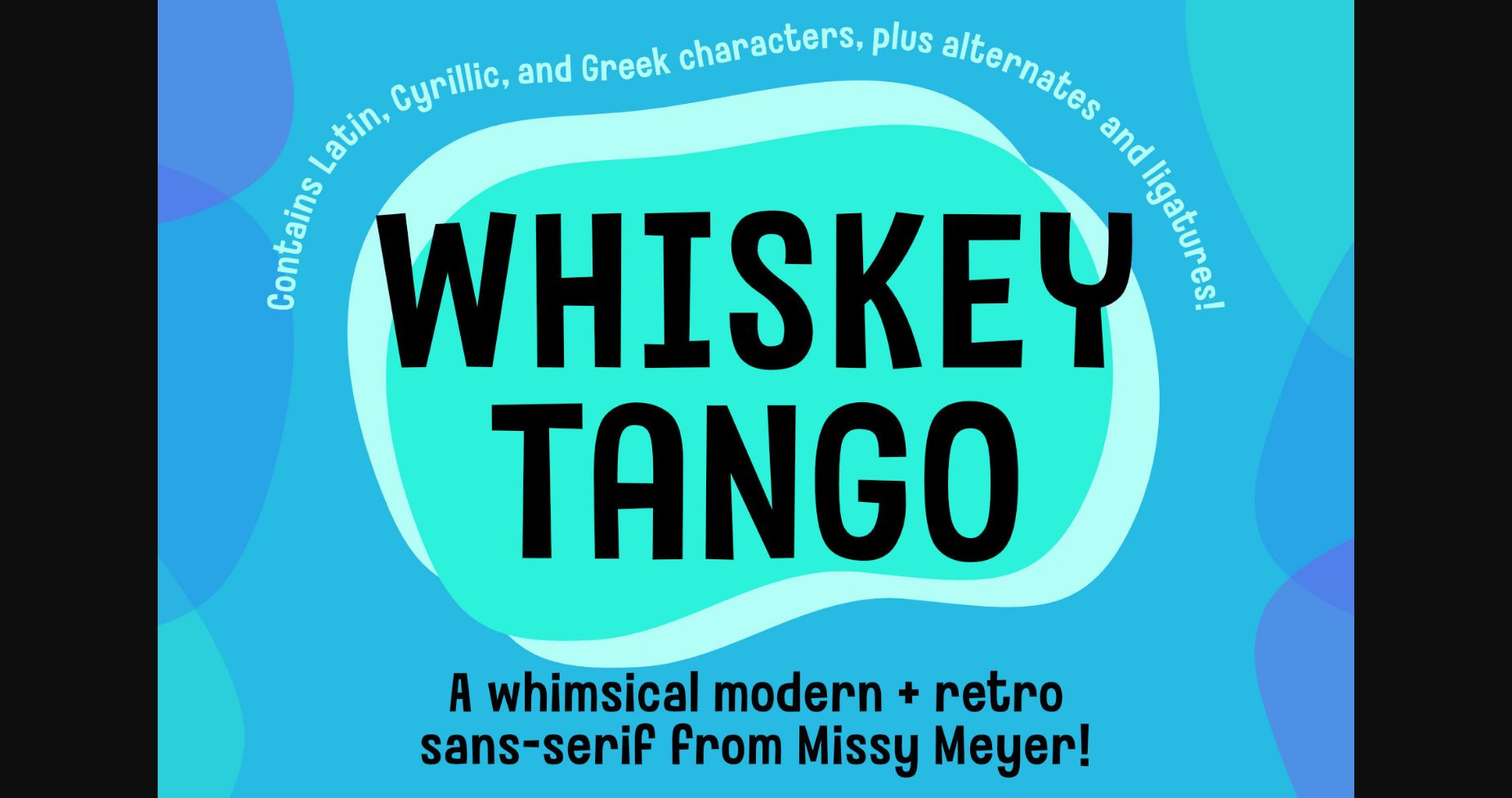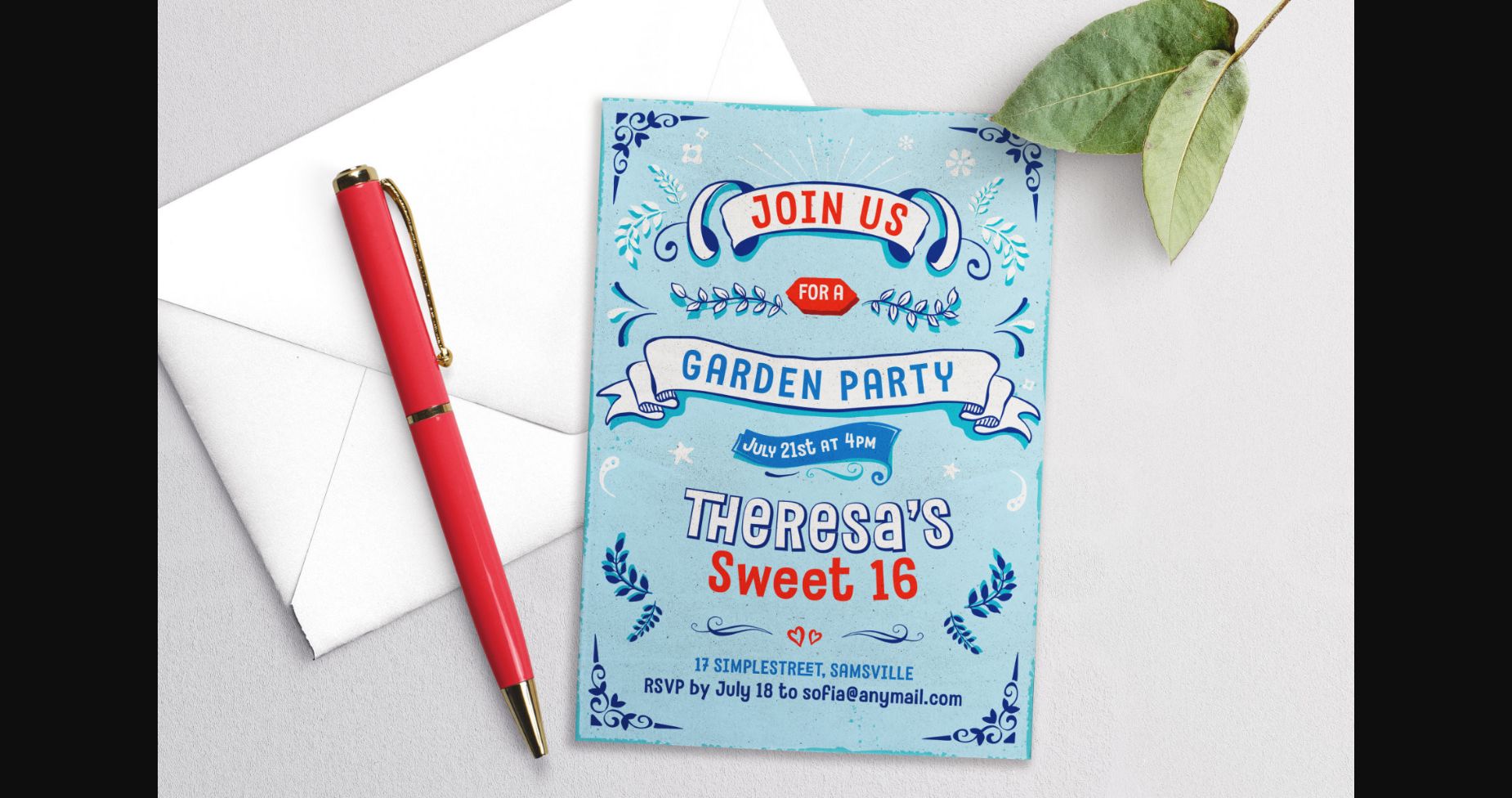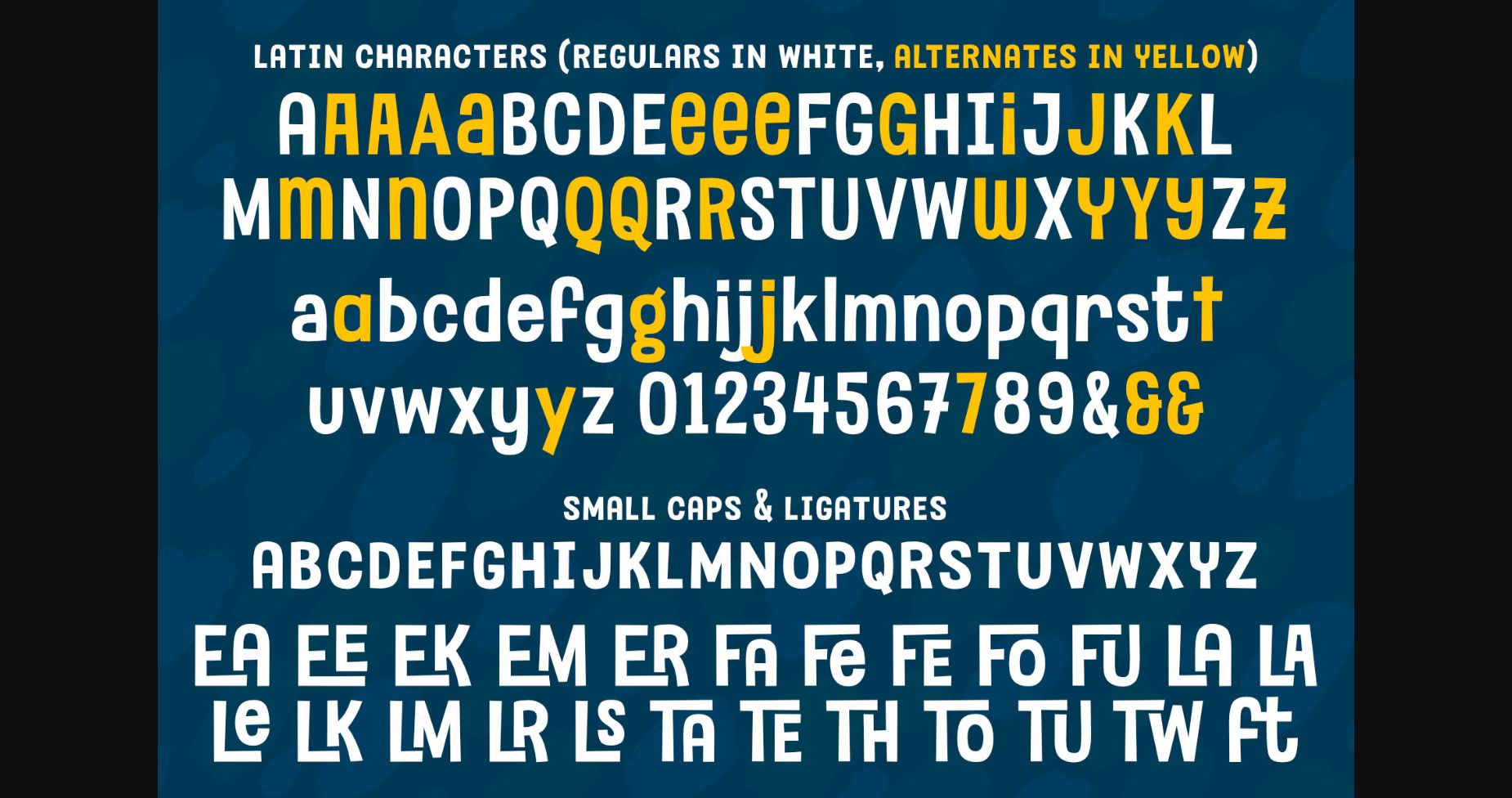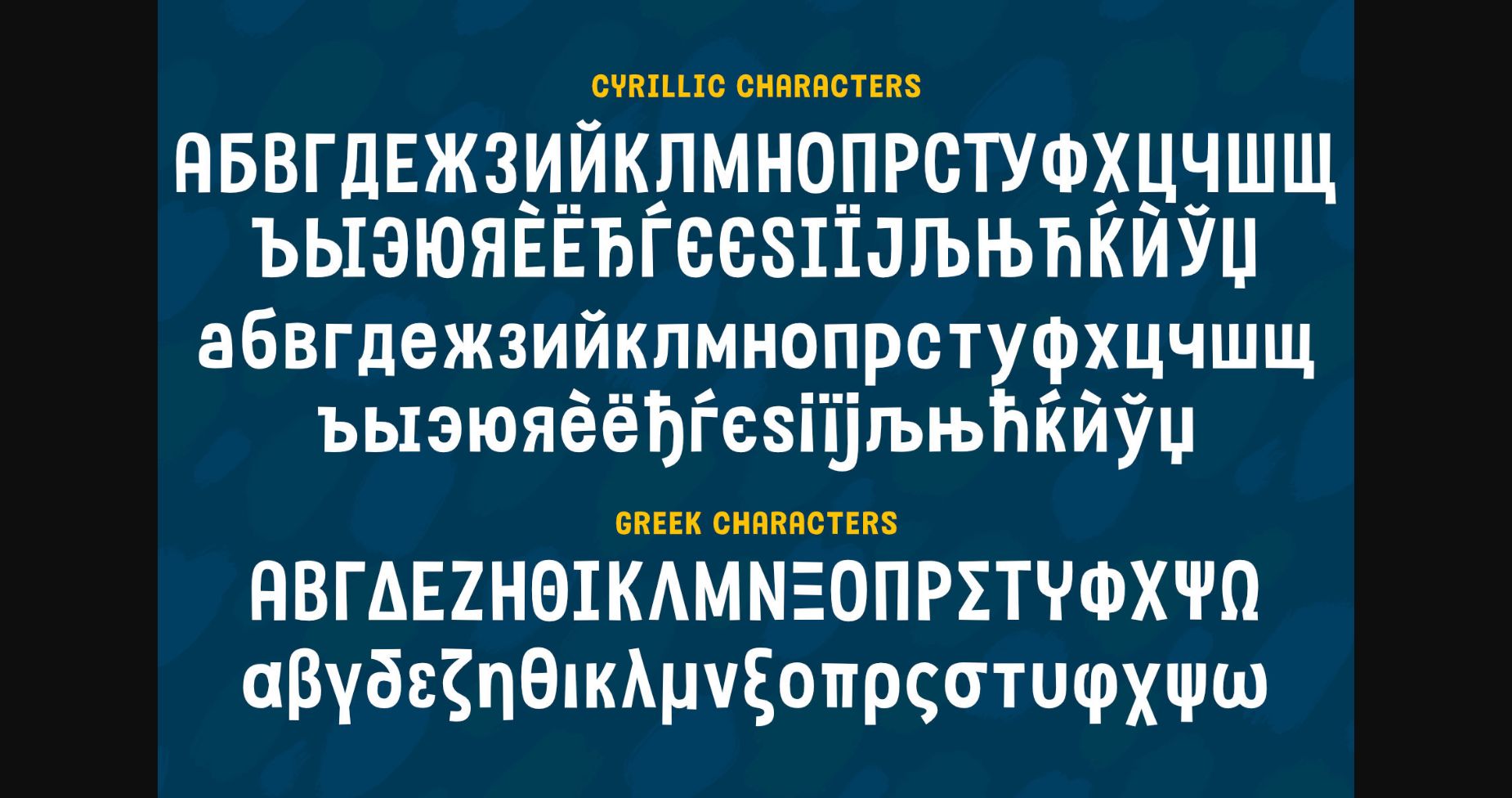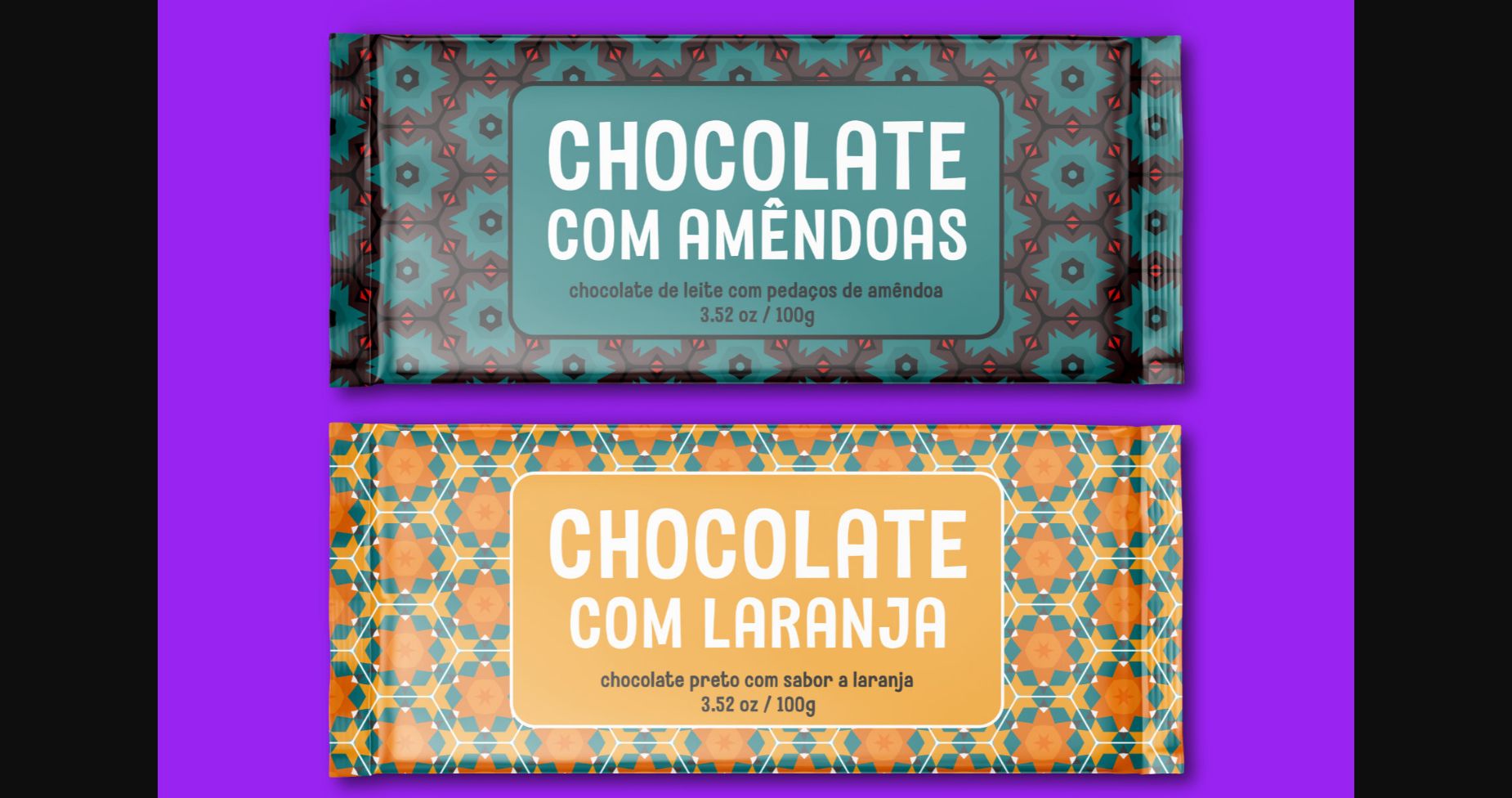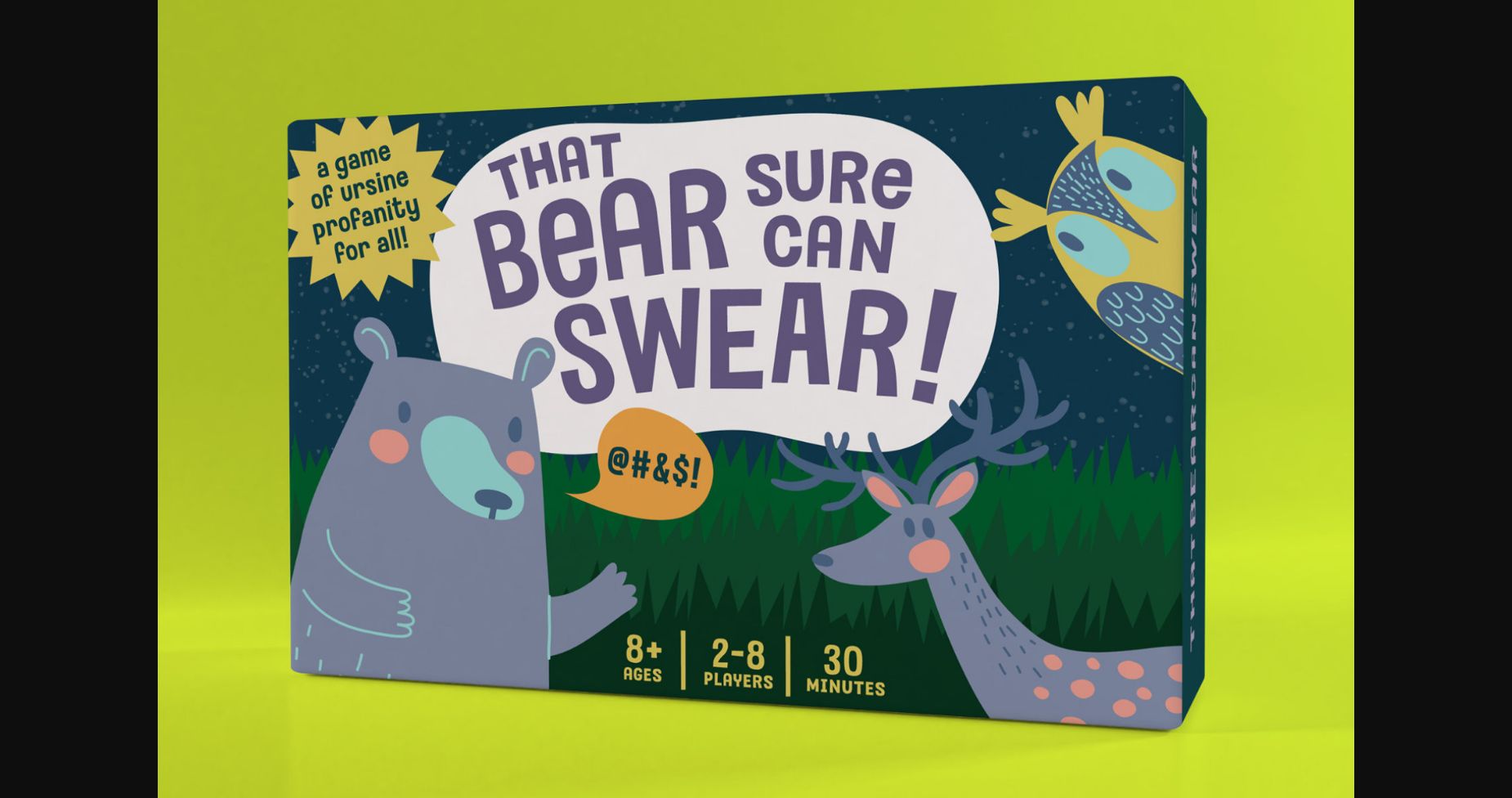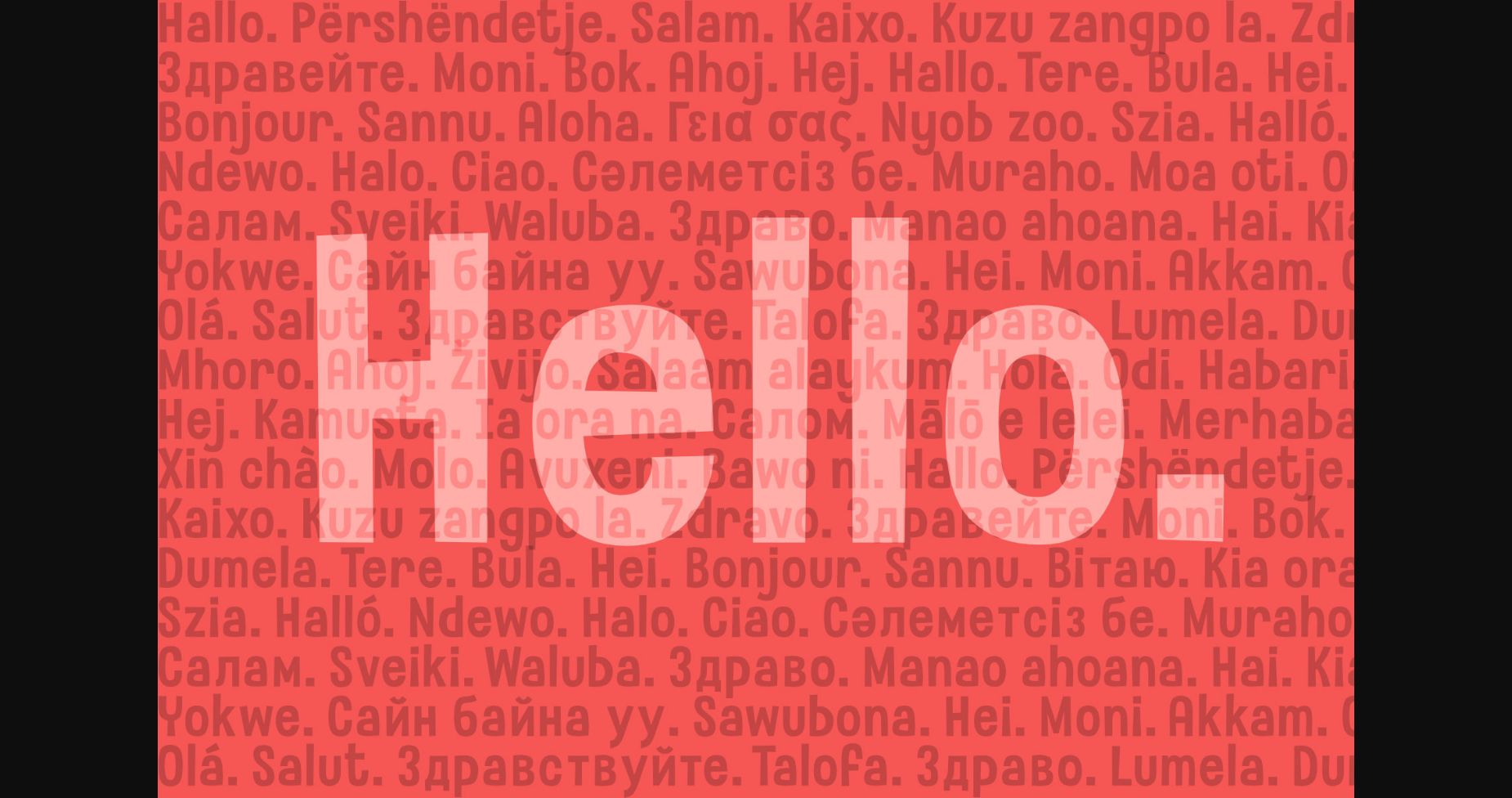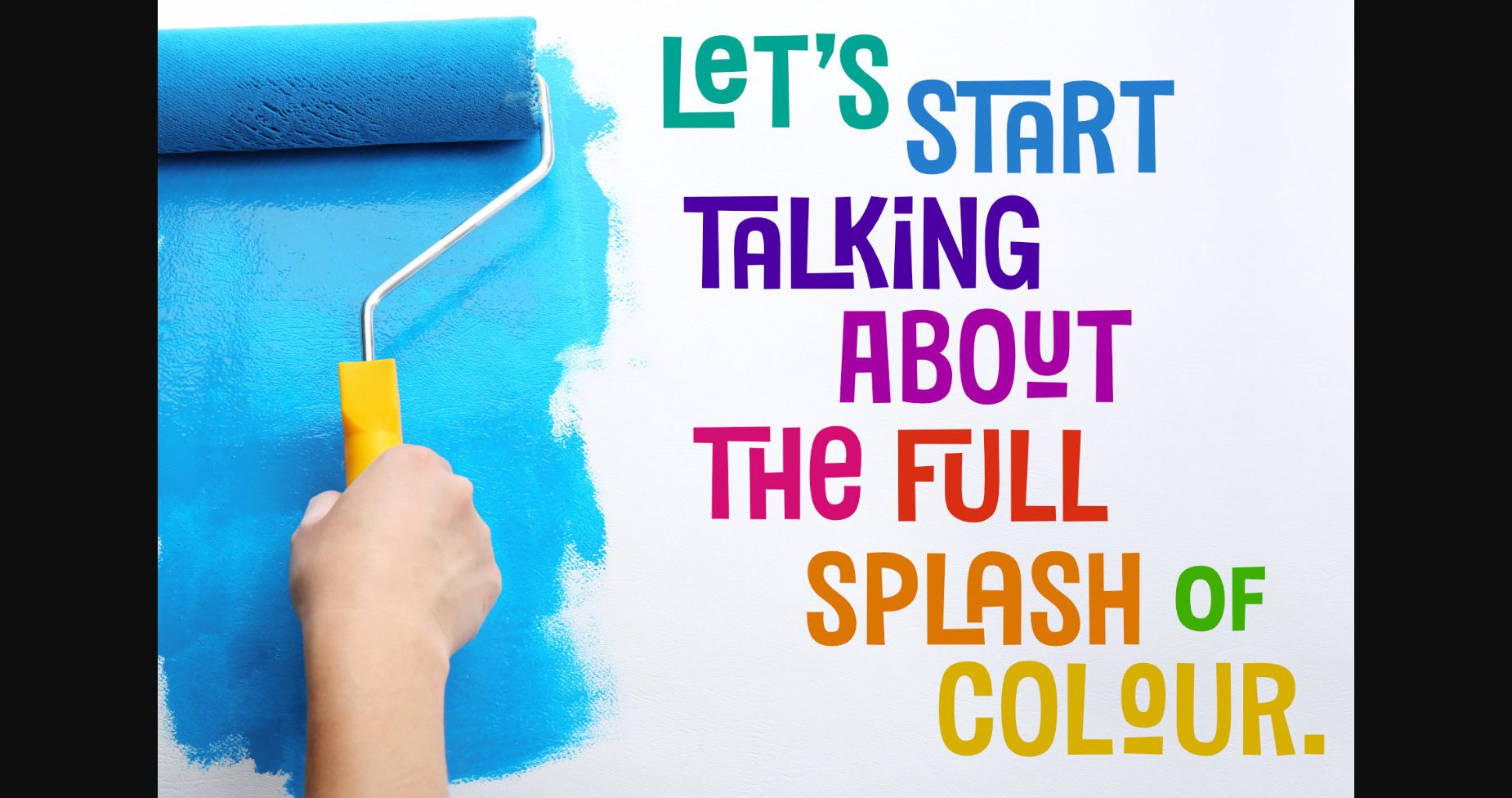
Whiskey Tango Font
Whiskey Tango is a fun retro-style tall and narrow sans-serif font with a scoop of variety: it includes over 110 items in the Private Use Area, including small caps, alternates, ligatures, and ordinal indicators.
There’s just enough imbalance in stroke widths to make this font a little goofy and quirky, and really charming. All of the lines and curves are clean and sharp, making it great for text that’s large, medium, or small. And it’s great for crafting as well!